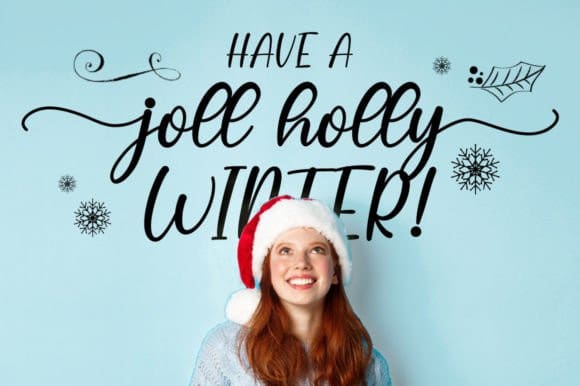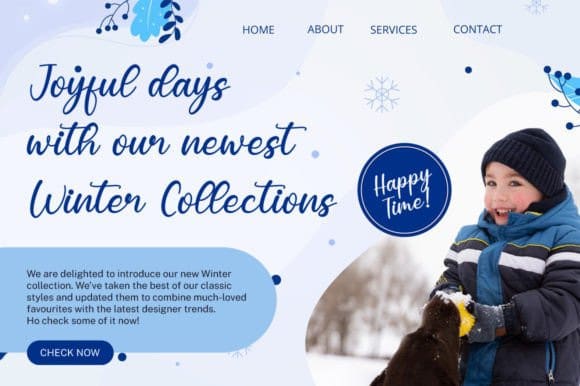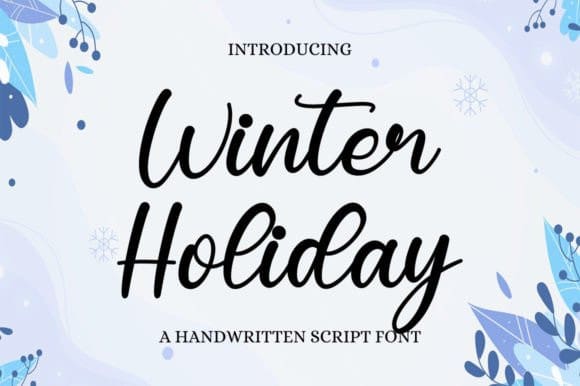
Winter Holiday Typeface
Winter Holiday Typeface is a lovely and timeless handwritten font. It is the best choice for creating eye-catching logos, branding, and quotes. WinterHoliday is PUA-encoded, which means you can access all of the glyphs and swashes with ease!